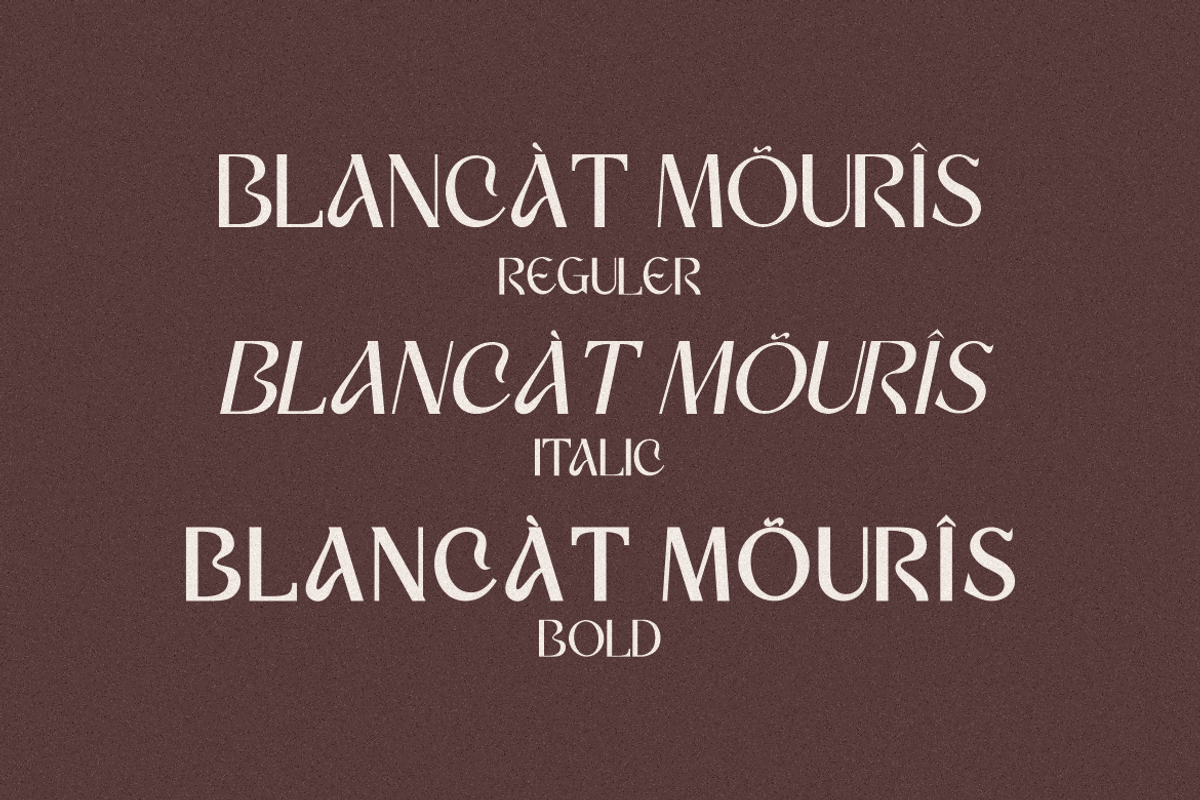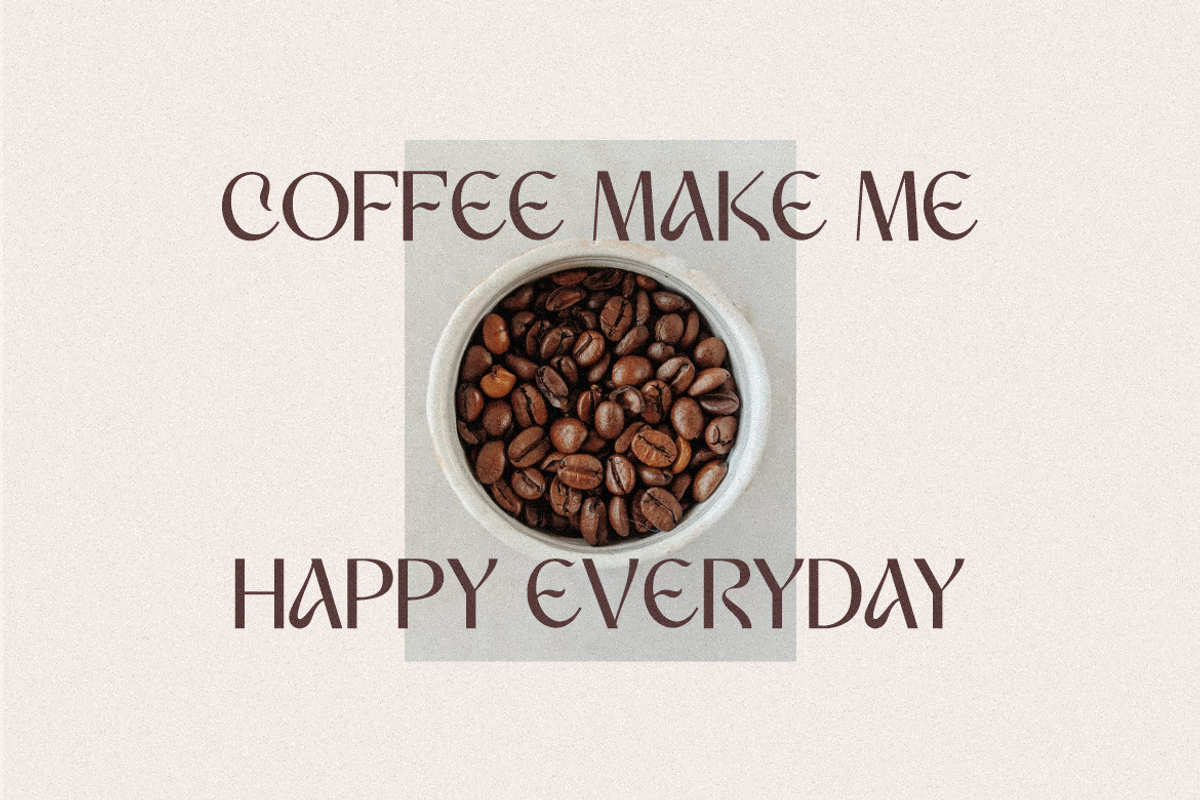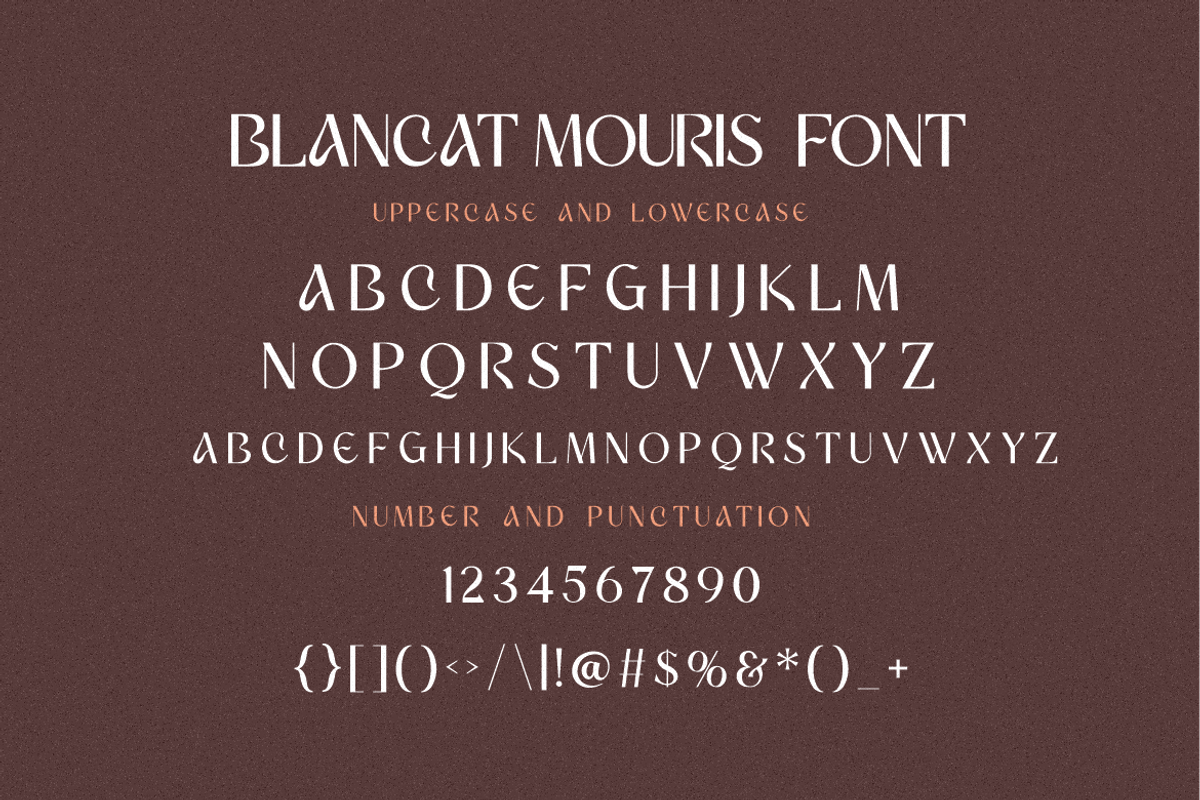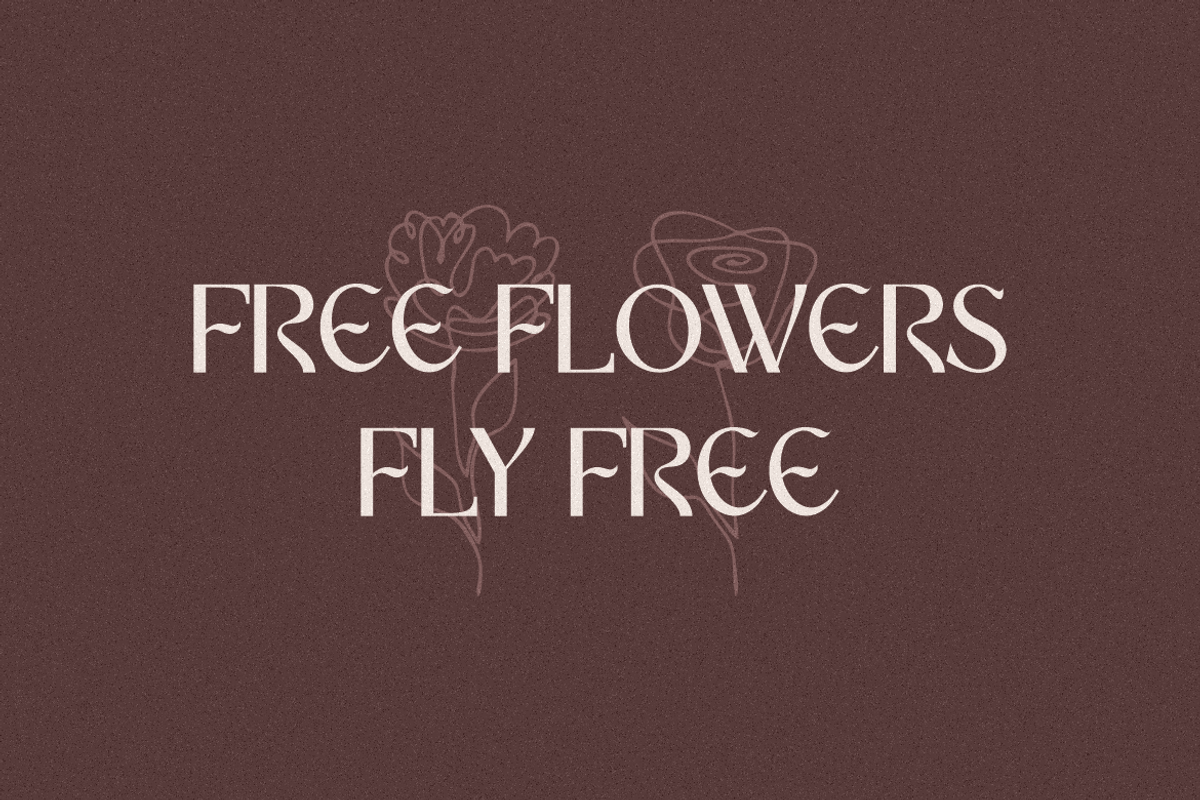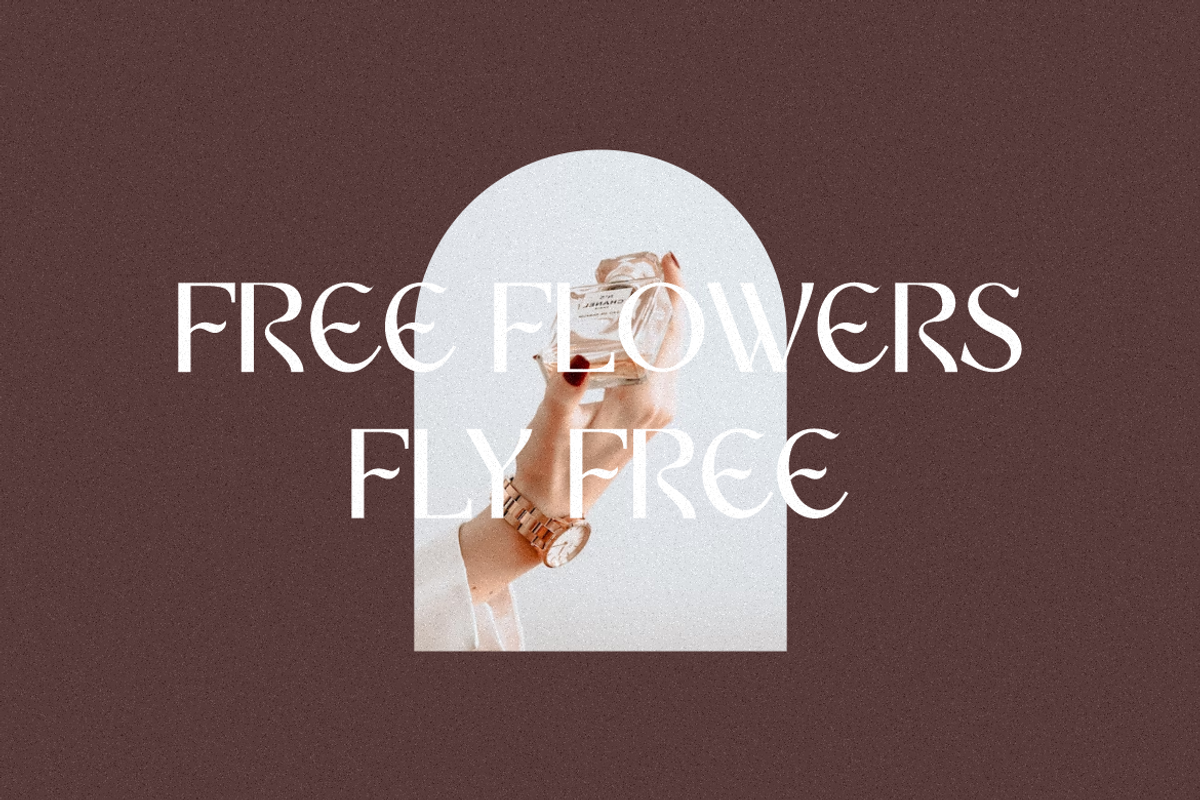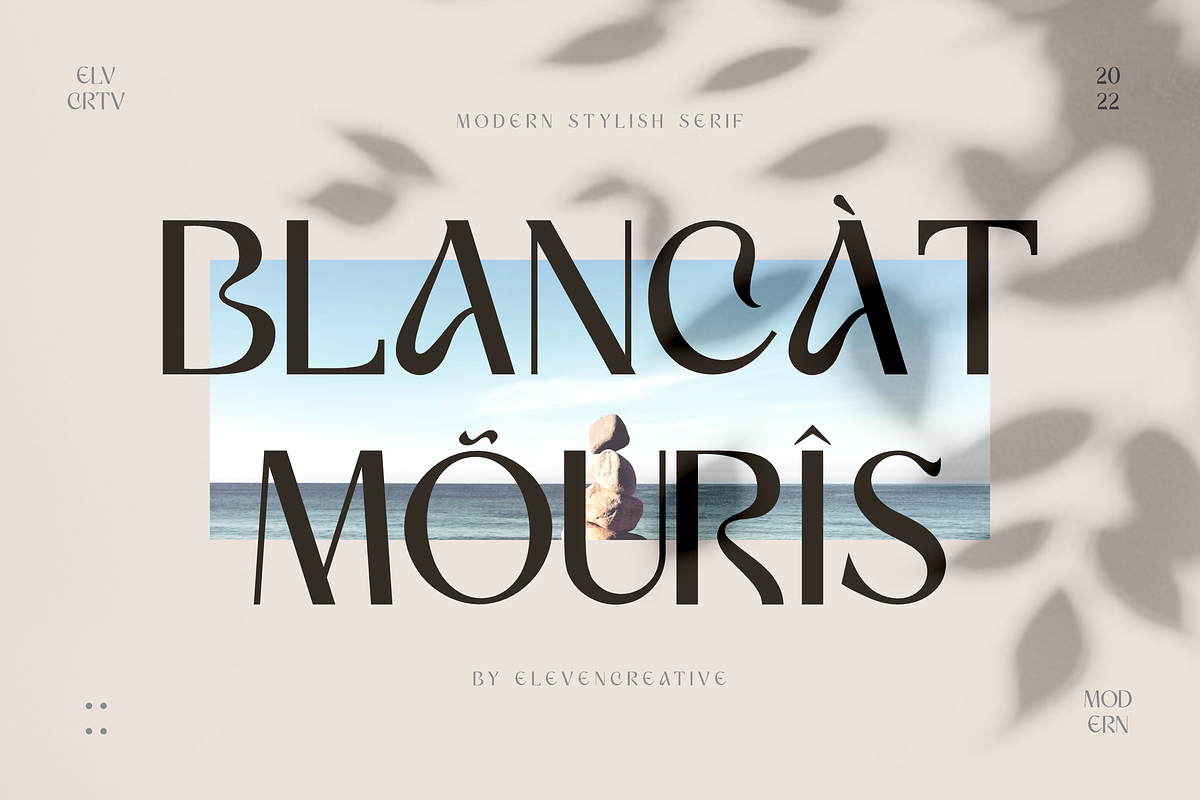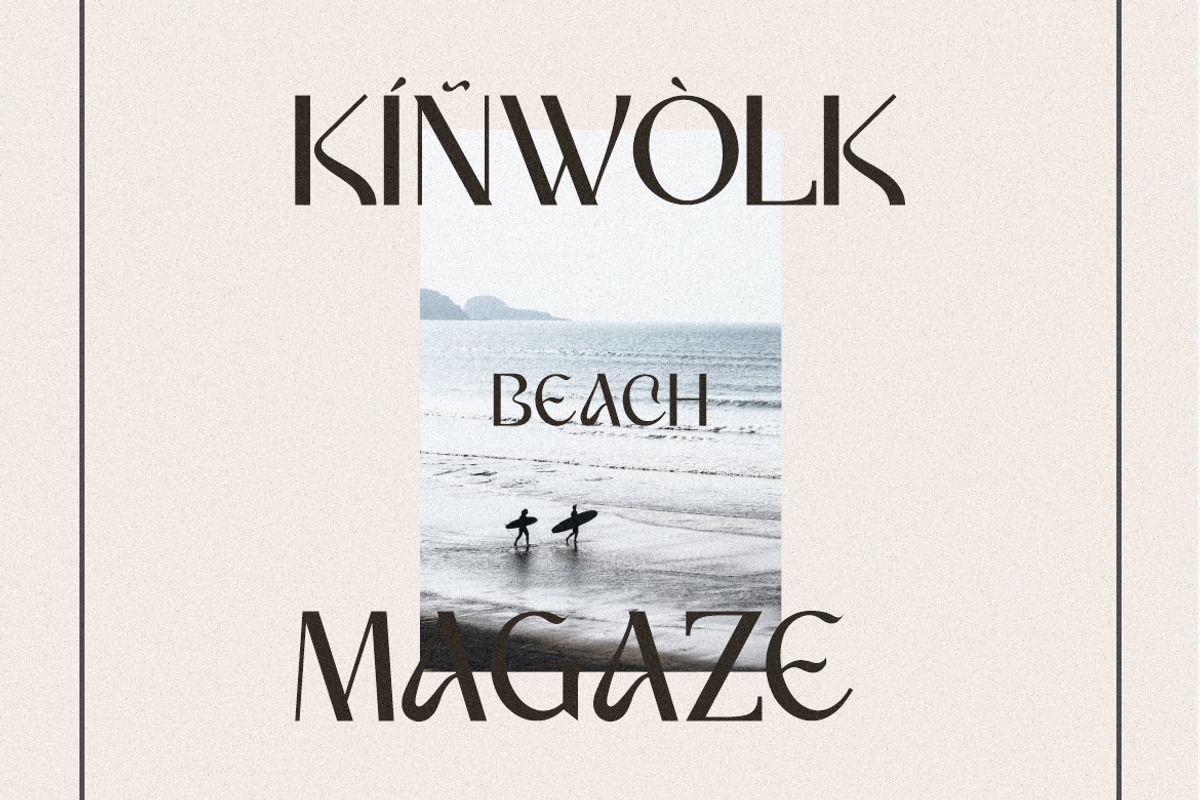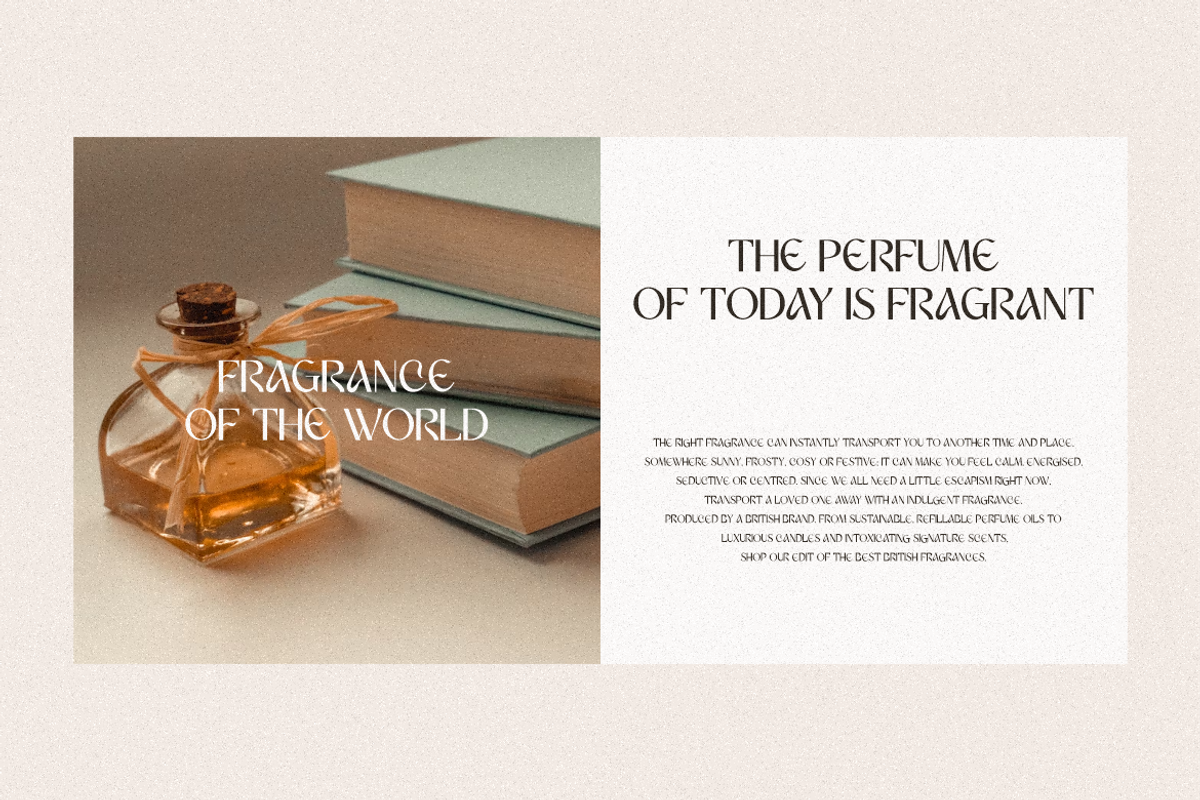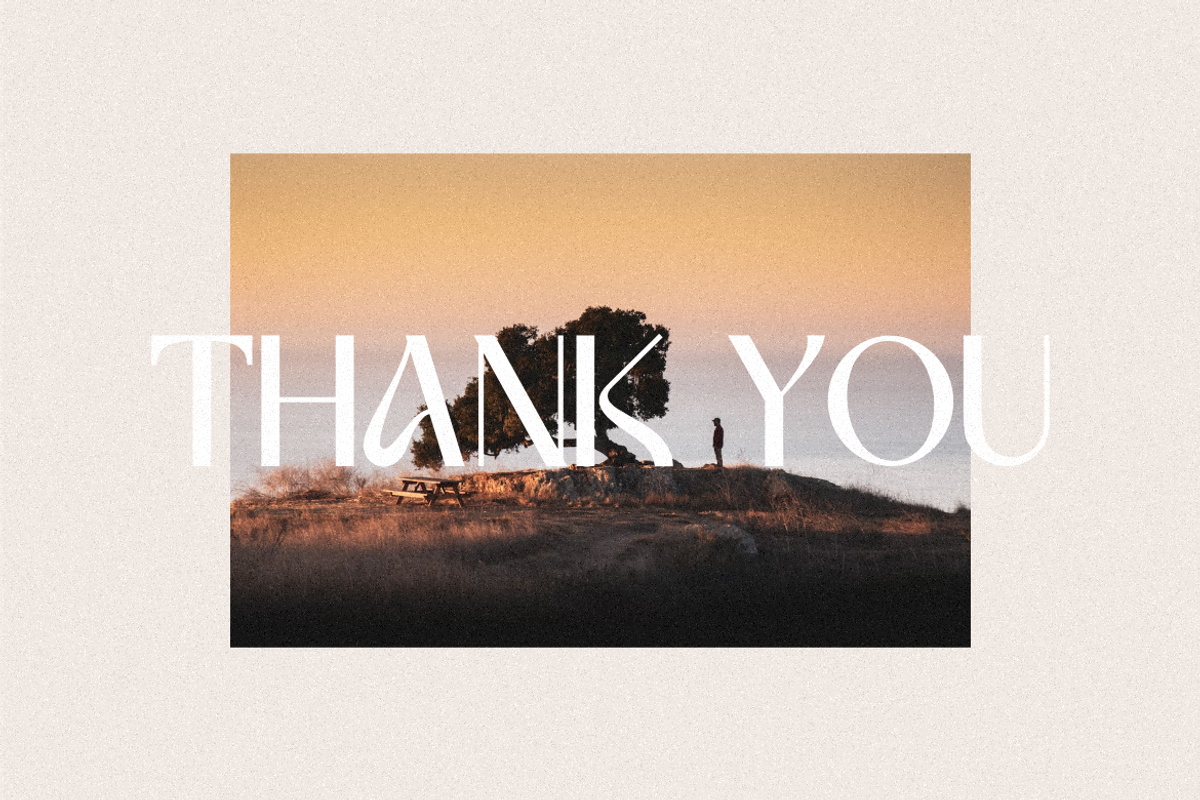
Blancat Mouris Serif
Introducing of our new product the name is Blancat Mouris Serif . This collection of scripts is perfect for personal branding. It was made with the intention to be used for your personal branding. But, this works well for many applications. Everything from personal branding, logos, name tag, handwritten quotes, product packaging, merchandise, social media & greeting cards. photography signature, advertising could benefit from this collection of these bold signature fonts.